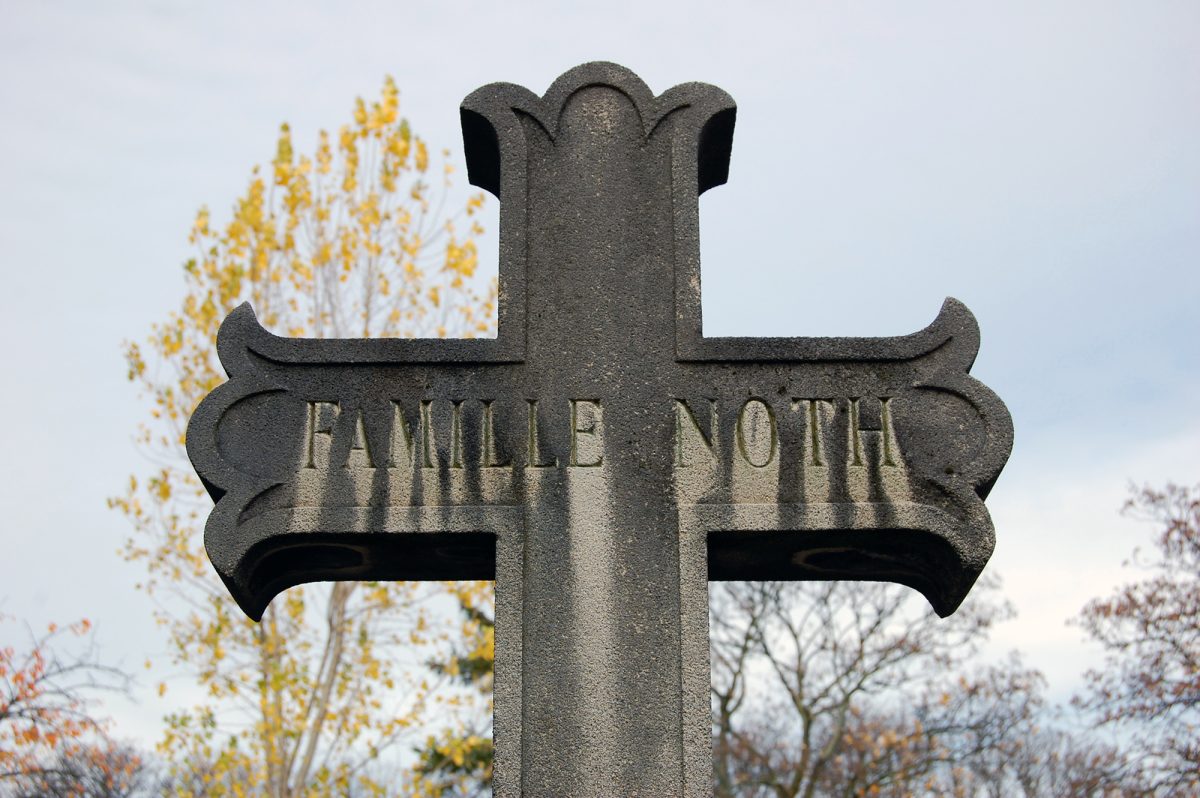
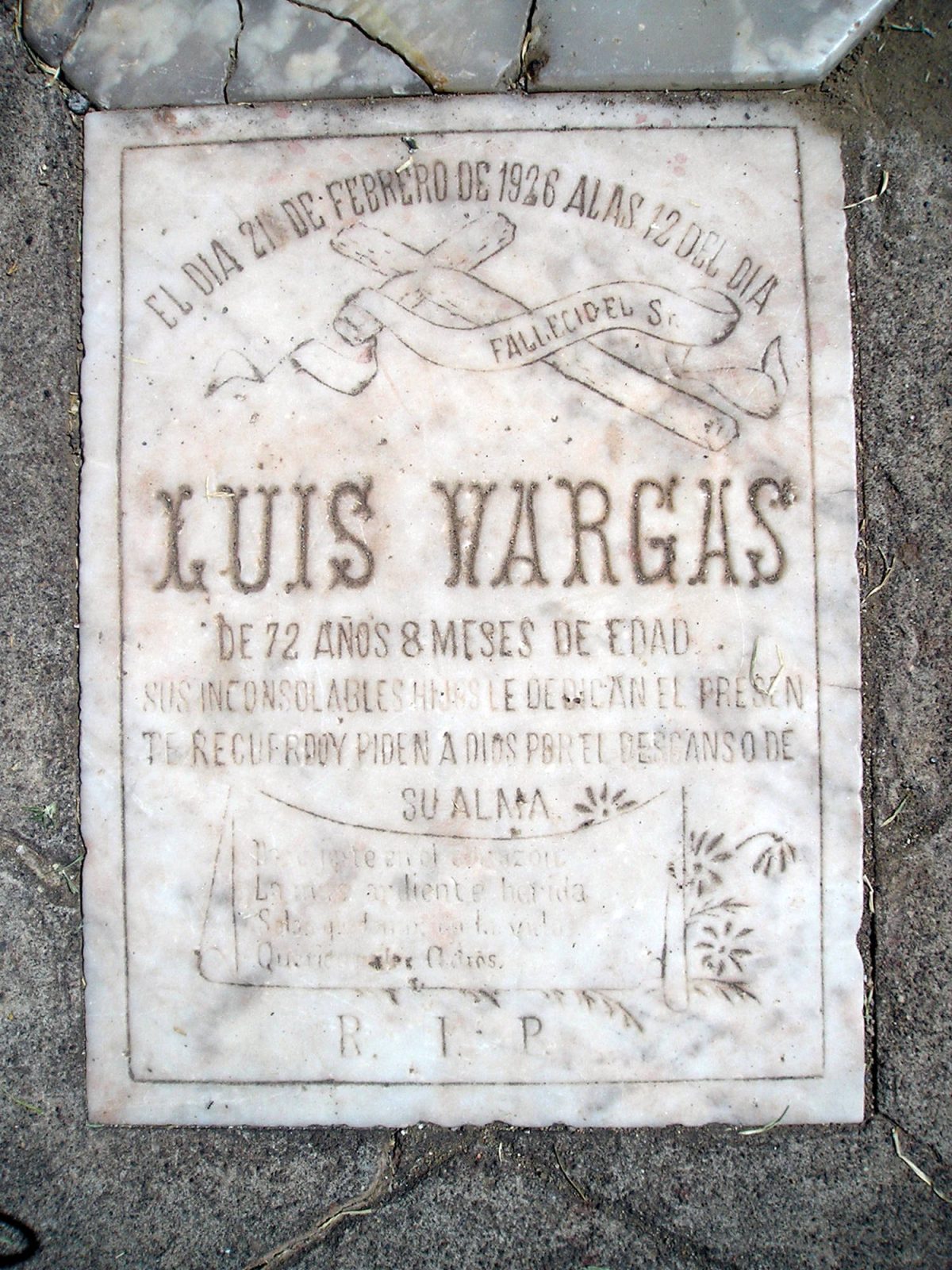
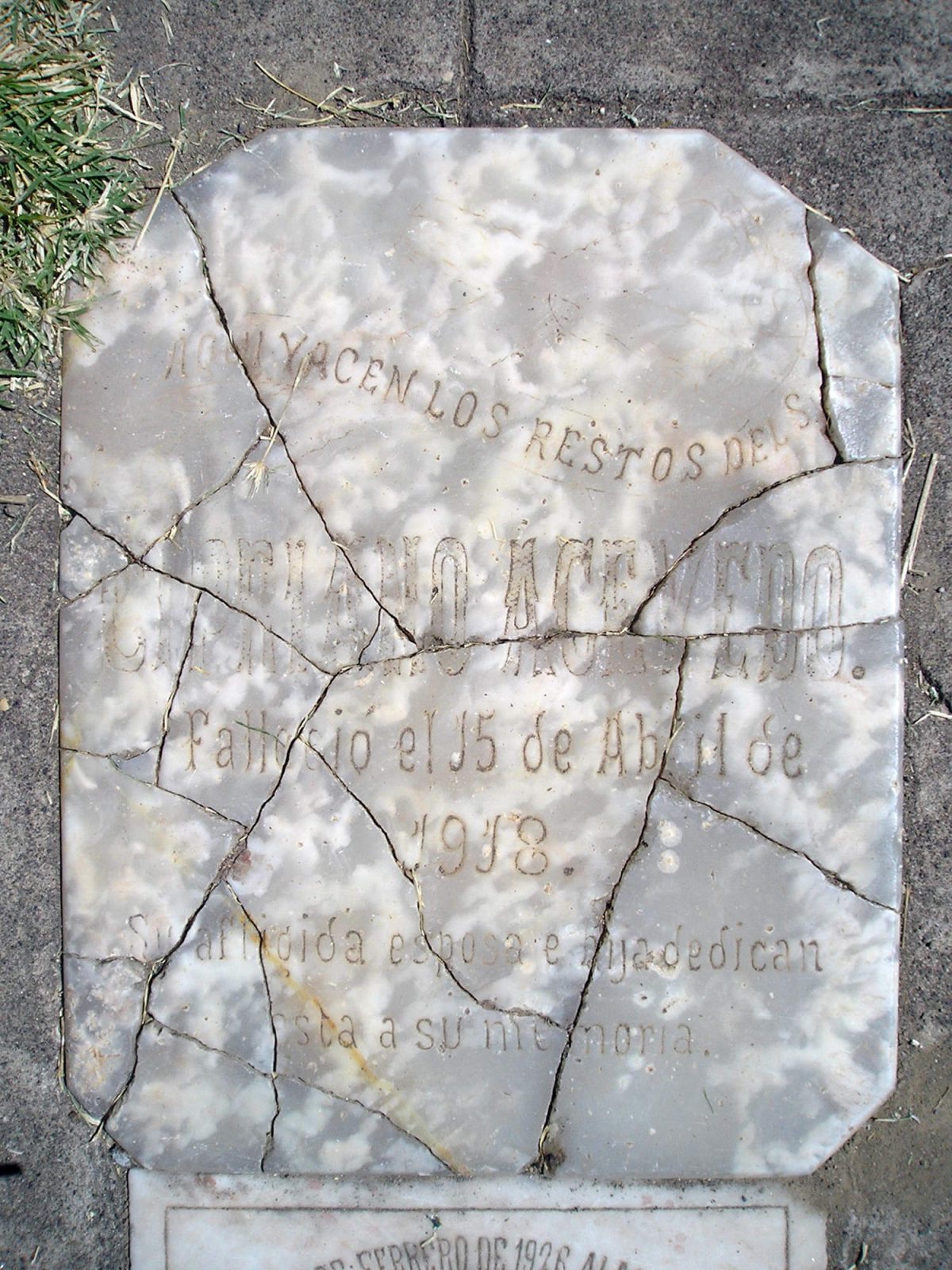
Headstones in the Huaquechula cemetery, Puebla, Mexico, using various Tuscan styles. In fact, this is one of the towns most visited by tourists to admire the ofrendas (‘offerings’) that families make on the Day of the Dead, which is perhaps the most culturally significant celebration in the country.
Initial thoughts
Cemeteries are that kind of taboo places, which produce in all of us some sort of inner tension or secret cataclysm. It’s not that we don’t know it: we are all going to die one day, whether we accept it or not. But almost nobody likes to remember it. And everyone chooses to continue distracting themselves with the minutiae of their lives, kicking the ball forward, let’s say, to a nebulous and as undefined future as possible. Which is why none of this prevents us from wondering what happens to the anatomy of letters in cemeteries.
A couple of clarifications are in order. For example, we mistakenly call letters engraved on stone stelae “lapidary”, when, on the one hand, there is an infinite diversity of epigraphic inscriptions on stone that are not gravestones; and, on the other hand, within the lapidary practice in cemeteries, there is an enormous variety of lettering styles. In fact, practically all the styles that have been practised in printing have, sooner or later, also been carved in stone. Not to mention that it was on stone that our uppercase letters evolved, and from uppercase letters came lowercase letters, which evolved on flexible supports. And here I think: the shape of the letter should not be conditioned by the support on which it is materialised. Rather, any shape should be able to be engraved on any material, as long as the person doing it has the necessary skill.
However, and returning to the subject: of the enormous diversity of styles of decorative letters, it is a bit surprising the great ubiquity of a specific ornamental genre, the so-called Tuscan letters.
Basically, a typeface is considered Tuscan when its serifs are bi- or tri-furcated (sometimes with a greater number of extensions) to achieve a certain degree of fantasy or ornamentation. The examples are infinite since, apart from the terminals, all the other elements of the anatomy of a letter can vary: the strokes contrast, the ratio of proportions, the absence / presence of diamonds and other elements within the strokes, shadows, textures and other external additions.
Tuscan Italic type, William Thorowgood, 1825.
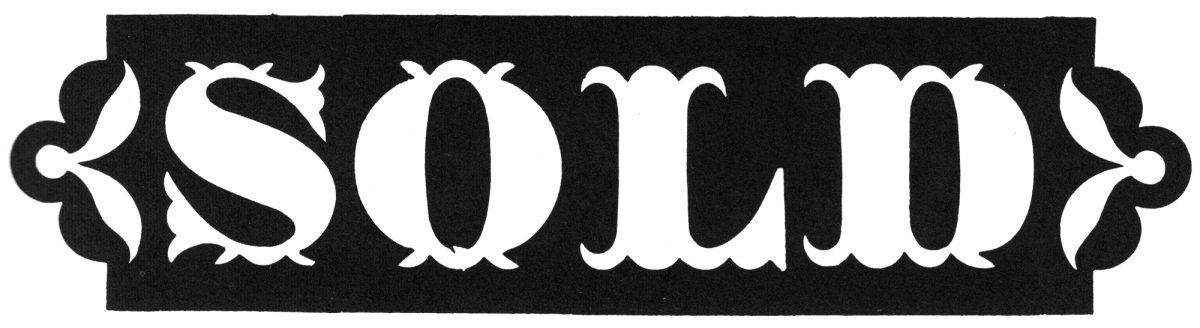
Tuscan reversed, Thorowgood, 1834.
Tuscan ornamented nº 3, Vincent Figgins, c.1846.
Three-line pica Tuscan ornamented, Caslon, 1849.
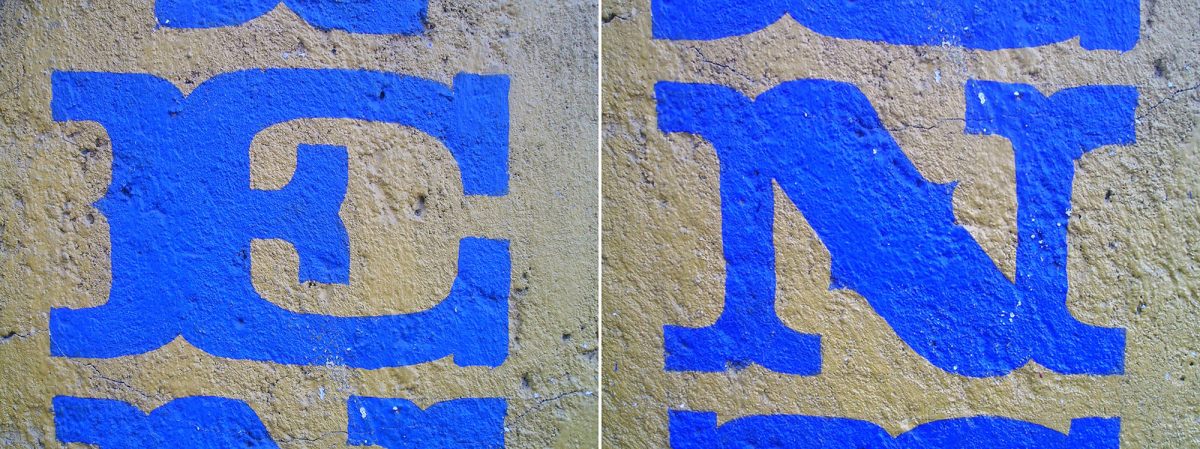
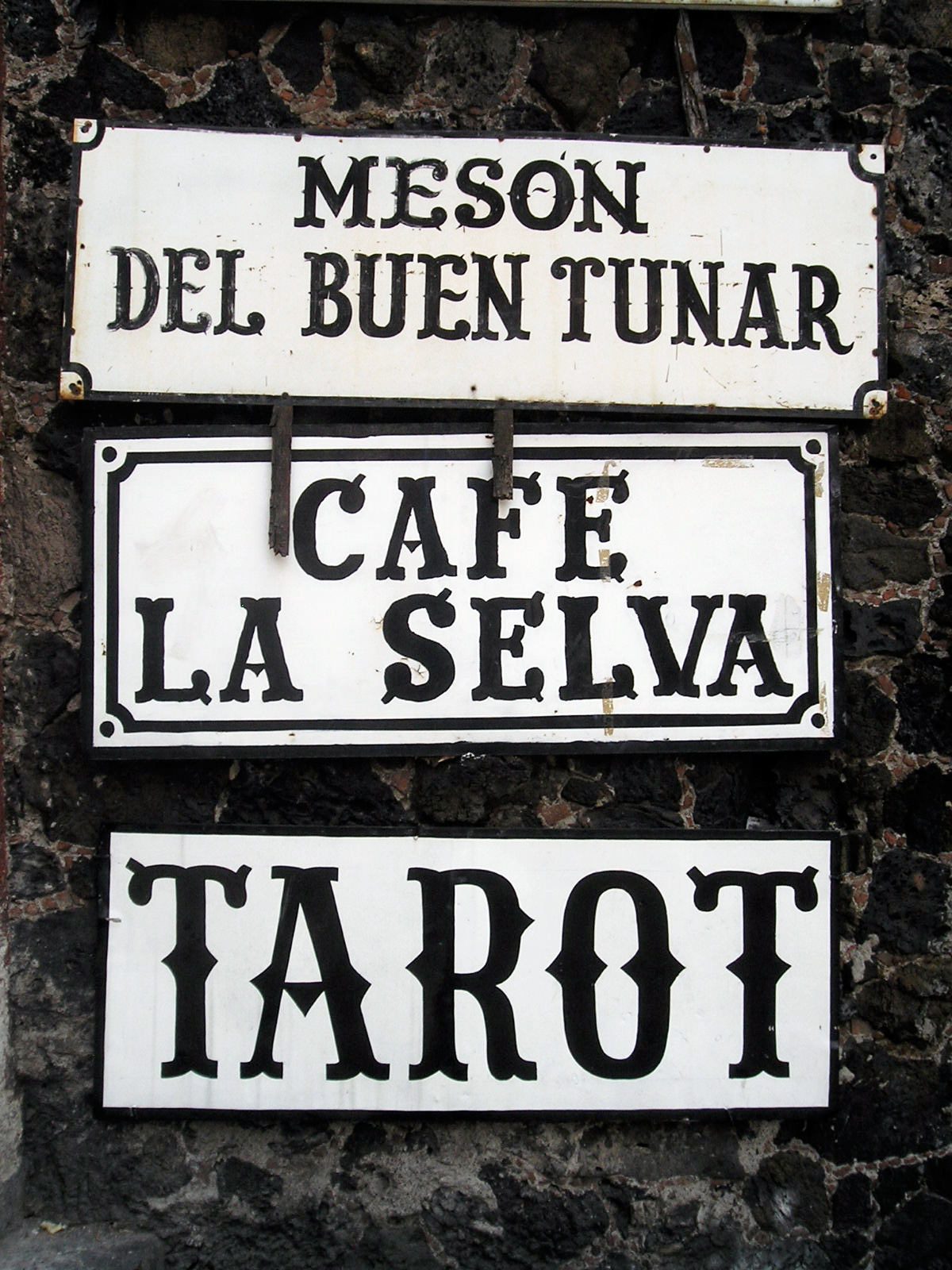
No one knows for sure the origin of the term Tuscan in typography. Nicolete Gray, a passionate researcher of decorative lettering, suggests that it may have been invented by Victorian type founders, there being no historical trace of such a designation 1. Remember that Tuscan, the cultured and literary language of Alighieri, Boccaccio and Petrarch, is the one that eventually prevailed over the other dialects of northern Italy, and it is therefore likely that ‘Tuscan’ was a generic name given to everything that was believed to come from that region. 2
On the other hand, Tuscan is only a name. We do not know with historical rigour whether it is legitimate to call it Tuscan or whether the style would have been born in Tuscany, although we could well imagine that, northern Italy having been for so long the fundamental source of all artistic novelty, in the eyes of the rest of the continent, it is likely that any innovation devoid of name or place of origin would be called Italian or Tuscan. We already know that all roads lead to Rome (or Florence) and that the traces of the Roman Empire throughout its territory are still warm.
Indeed, at the dawn of the 19th century, with all the proliferation of new type styles to satisfy the advertising industry’s voracious appetite for novelty, the Tuscan style was already a well-assimilated style among printers and type founders.
Already at the end of the 18th century it was clear that, even in the context of a supposedly rationalist and geometric typeface, such as that of Giambattista Bodoni, serifs could be minimally “flowered” and therefore give an impression of black tie attire, let’s say. In Margherita Bodoni’s *Manuale Tipografico* of 1801, the style that appears on page 99 is transformed into an evocation of Tuscan on page 100, with virtually no adjustment of the proportions of the letters.
Vincent Figgins’ well-known Tuscan, published around 1817 under the vague name of ‘Four lines pica Ornamented No. 2’, had pronounced contrast, bifurcated serifs, circles at joints, a play of textures, inner line at the edge, feathers in the thick strokes, and even a shadow, for good measure. It is supposed to have been available as a wood type, but there is no evidence. Image taken from Figgins’ specimen of 1815. 3
Victorian Tuscans
For those of us who love letters (nothing better than the French term amateur) and in particular ornamental ones, Nicolete Gray’s magnificent book Nineteenth Century Ornamented Typefaces continues to be the fundamental reference, generous in images, historical rigor, minutiae and passion. 4 One of the appendices to that volume is dedicated to Tuscan letters in particular and, to my knowledge, it is the only document devoted to the history of the style.